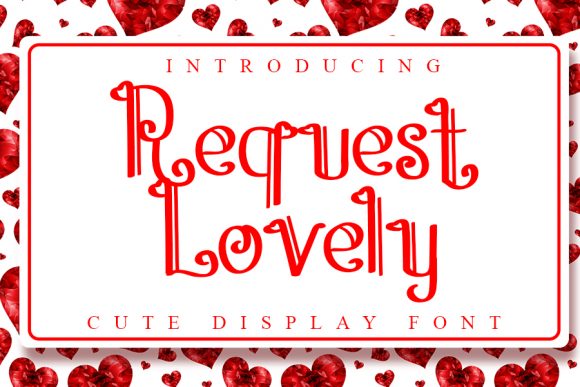
Dive into the enchanting world of "Request Lovely" – a display font that captivates the essence of magic and romance. Let your designs shimmer with elegance as you explore the boundless creativity that awaits. From heartfelt wedding invitations to heartfelt thank-you cards, "Request Lovely" adds a touch of personal charm to every creation.
Unleash the power of expression with "Request Lovely's" captivating quotes and greeting cards. Its delicate strokes dance across the page, evoking emotions and leaving a lasting impression. Craft logos that exude sophistication and business cards that leave a memorable mark – "Request Lovely" elevates your designs to new heights of professionalism.
With its versatility, "Request Lovely" seamlessly adapts to any project, adding a touch of enchantment to every endeavor. Its delicate curves and elegant lines bring a sense of whimsy to posters and flyers, while its timeless appeal shines through in brochures and annual reports.
Let "Request Lovely" ignite your creative spark and transform your designs into works of art. Its magical essence captivates audiences, leaving them spellbound by your creations. Embrace the beauty of this remarkable font and elevate your designs to new realms of enchantment.